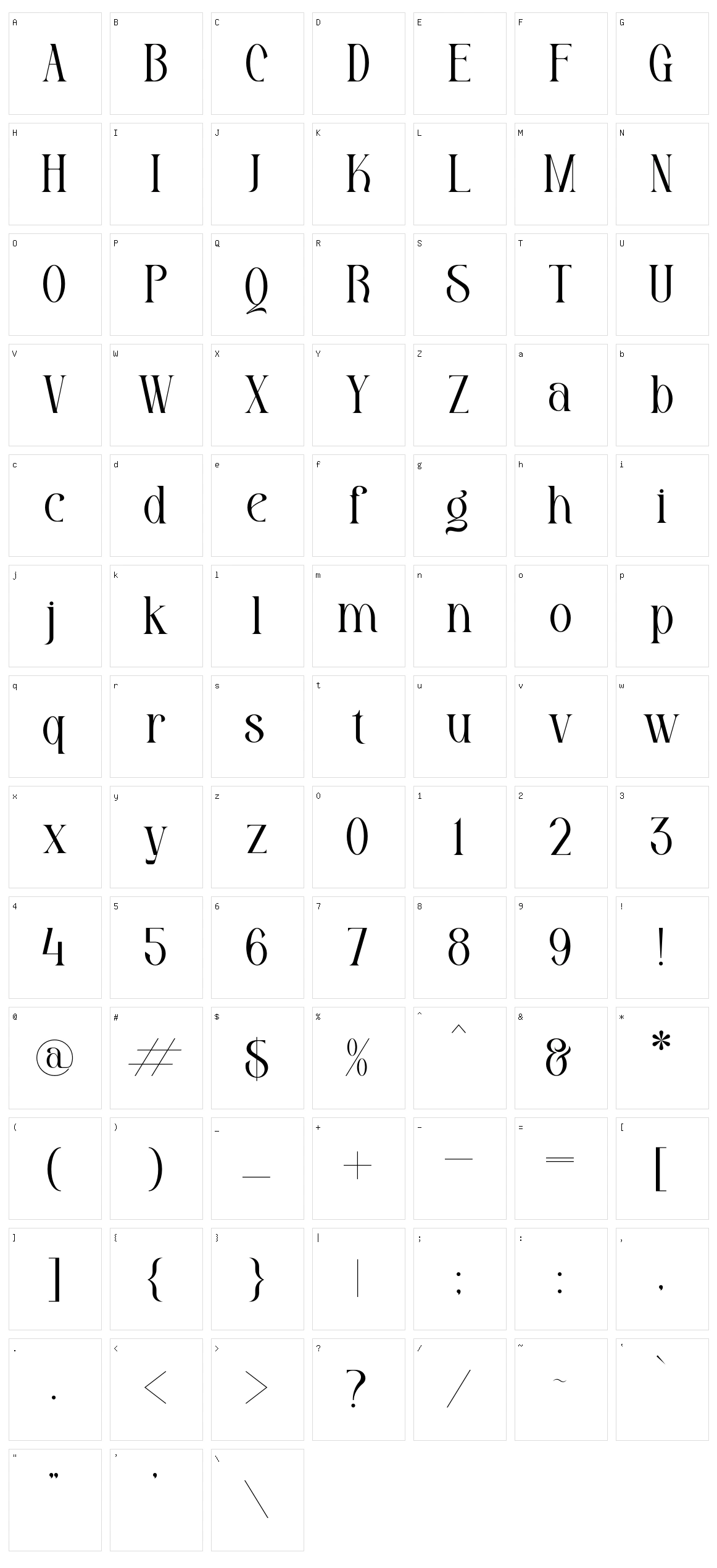
The free font Rahgbok is carefully designed by Storytype Studio, showcasing a thoughtful balance of creativity and usability and falls under the Serif font style. When you download the ZIP file, it contains only 24.95 KB of font files, making it lightweight and quick to download. Please review the license details below to understand permitted usage and distribution rights. If license information is not available, we recommend using this font for personal projects only or contacting the author directly for commercial usage permissions.